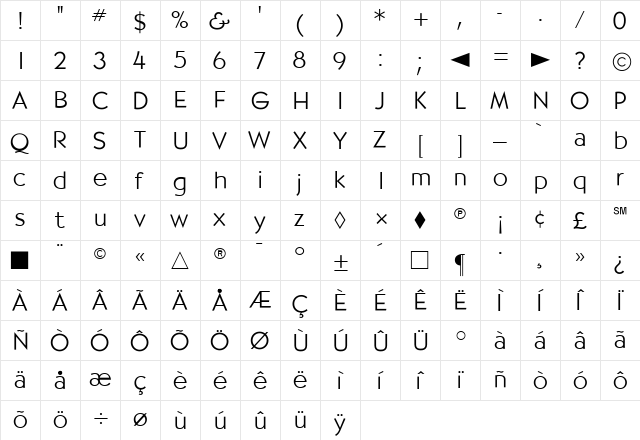
CgBernhardtLt Medium
Design Context for CgBernhardtLt Typeface
CgBernhardtLt offers clean, dependable letterforms without strong stylistic allegiance, making it a practical choice for designers who need flexibility.